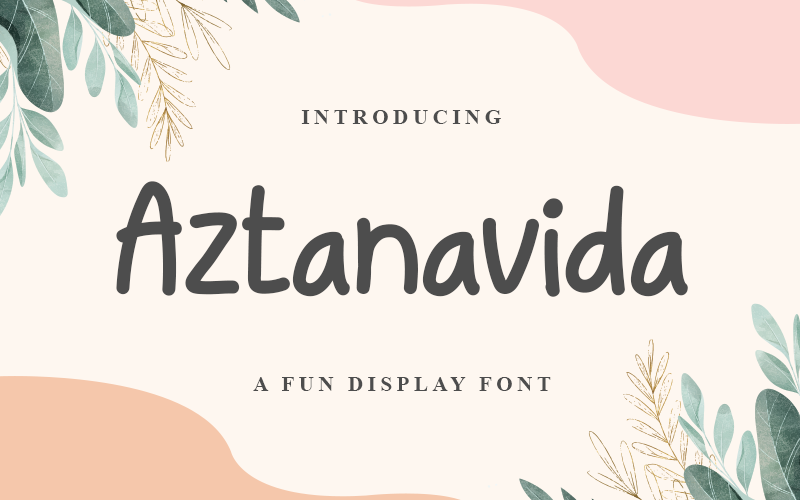
Preview and download Aztanavida Font. Created by Denny Sutanto in Script Handwritten styles with Free for personal use license.
Aztanavida Font is a Fun Display Font. This font is is perfect for branding projects, logo, wedding designs, social media posts, advertisements, product packaging, product designs, label, photography, watermark, invitation, stationery and any projects that need handwriting & Cute taste. What�s Included: � OTF & TTF � Works on PC & Mac � Easy to use ( Installations ) � Easy Convert to webfont � Compabilty Windows, Apple, Linux, Cricut, Silhouette and Other cutting machines Note of the author: NOTE: This Demo is for PERSONAL USE ONLY! But any donation are very appreciated. Link for Donations via PayPal: paypal.me/dennysutanto93 link to purchase full version and commercial license: - Creative Fabrica: https://www.creativefabrica.com/product/aztanavida/ref/235725/ Please visit our store for more great fonts: - https://www.creativefabrica.com/designer/densudesign/ref/235725/ and follow my Instagram for update: https://www.instagram.com/densudesign/ Thank You #AztanavidaFont #Aztanavida #Font #simple #playful #joy #handwriting #soft #cheerful #font #fontdesign #logo #businesscard #card #design #graphic #written #handwritten #simple #family #cheers #cheerful #font #fontdesign #logo #businesscard #card #design #graphic #written #handwritten #simple #family #cheers #cheerful |